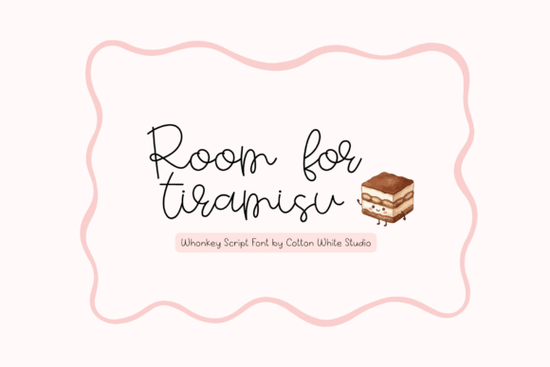
If you're looking for a light, friendly handwritten font that feels personal without being fussy, Room for Tiramisu is a thoughtful choice. It’s a thin script font designed with natural letterforms and gentle, delicate lines the kind that looks like it was written with care, not generated by algorithm. Whether you’re designing birthday invitations for a toddler, labeling handmade soap jars, or building a soft, approachable brand for your small business, this font adds quiet charm without overwhelming your layout.
What kind of projects does Room for Tiramisu work well for?
Because it’s light in weight and intentionally playful, Room for Tiramisu shines in contexts where warmth and personality matter more than formality. Think: children’s book illustrations, planner stickers, baby shower printables, custom mugs, greeting cards, or even subtle watermarks on social media posts. It’s especially effective when paired with clean sans-serif fonts for contrast say, using it for a tagline over a bold heading in Montserrat or Inter.
Print-on-demand sellers often tell us they reach for Room for Tiramisu when designing nursery decor, kitchen towels, or minimalist wall art with food-themed quotes (yes, “tiramisu” inspired the name but it works just as well for “bake sale,” “hello sunshine,” or “little hands”). Its open spacing and soft curves keep text legible even at smaller sizes useful for tiny sticker labels or planner tabs.
How does it compare to other popular script fonts?
Unlike bolder, high-contrast scripts like Stowy Font, which leans into dramatic flourishes, Room for Tiramisu keeps things relaxed and grounded. It shares some of the gentle rhythm of Grace Brilliant Font, but with less bounce and more breath between letters making it easier to read in longer phrases.
Compared to Curlicue Font, which uses looping, decorative terminals, Room for Tiramisu opts for simplicity fewer swirls, more flow. And while The Bileso Font offers elegant, slightly formal elegance, Room for Tiramisu feels like a friend whispering something sweet not delivering a speech.
Is it beginner-friendly for crafters and small businesses?
Yes especially if you’re working in Canva, Cricut Design Space, or Adobe Express. It includes standard OpenType features (like ligatures and alternate characters), but you don’t need to use them to get great results. Most users get lovely outcomes just typing normally and adjusting letter spacing by eye.
It’s also well-suited for cutting machines. The strokes are consistent and thin enough to cut cleanly on vinyl or cardstock, even at 0.75" height helpful for planners, iron-on transfers, or layered paper crafts. Just avoid scaling it down below 0.3", where fine details may blur or disappear depending on your printer or cutter resolution.
What should you pair it with?
Avoid pairing Room for Tiramisu with other busy scripts it loses its quiet appeal. Instead, try:
- A simple geometric sans-serif (like Poppins or Nunito) for headings or body text
- A low-contrast serif (like Lora or Merriweather) for printed stationery
- Hand-drawn icons or line art think sketchy coffee cups, clouds, or tiny spoons to reinforce its whimsical tone